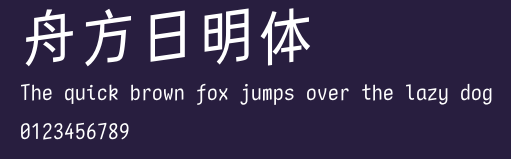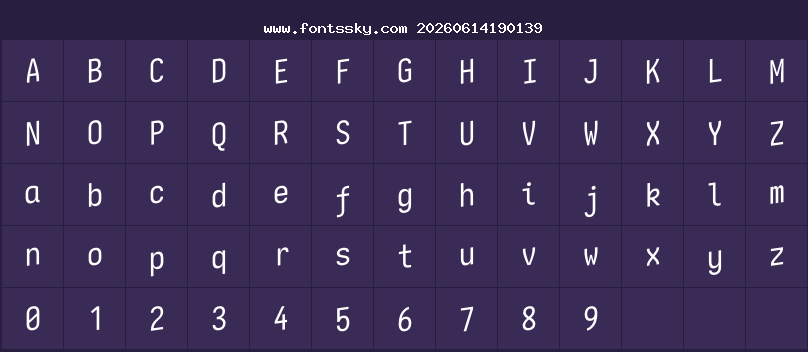
About 舟方日明体.otf
舟方日明体.otf is a modern, elegant sans-serif font designed for ultimate readability and visual harmony. Perfect for branding, headlines, web design, and print materials.